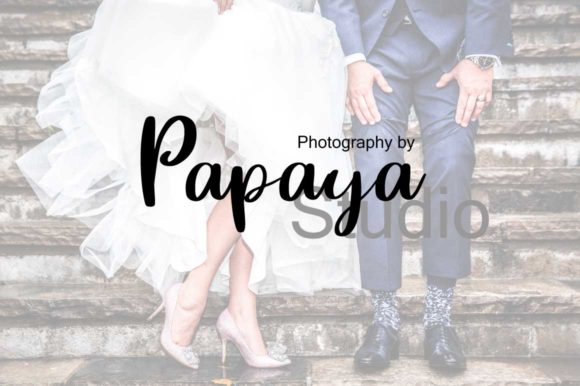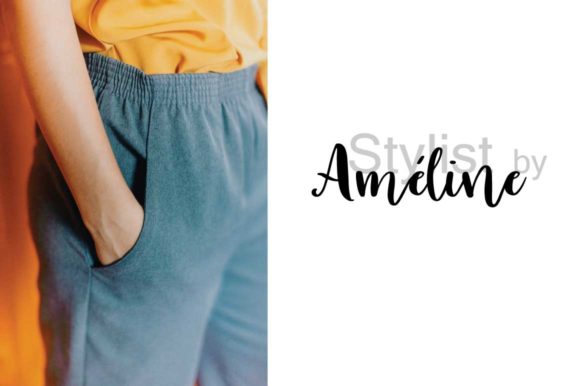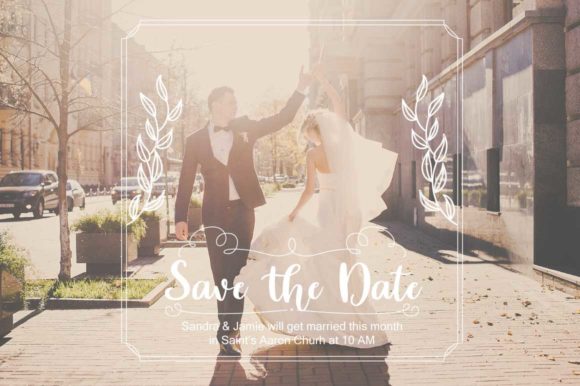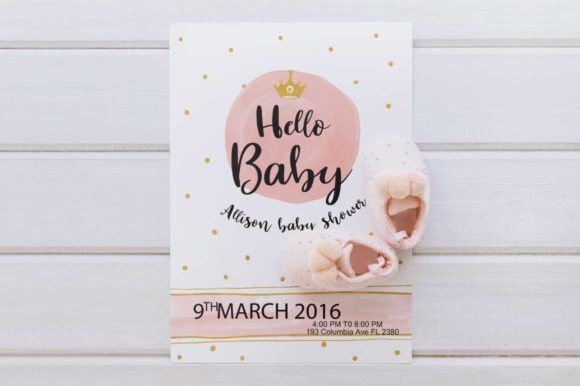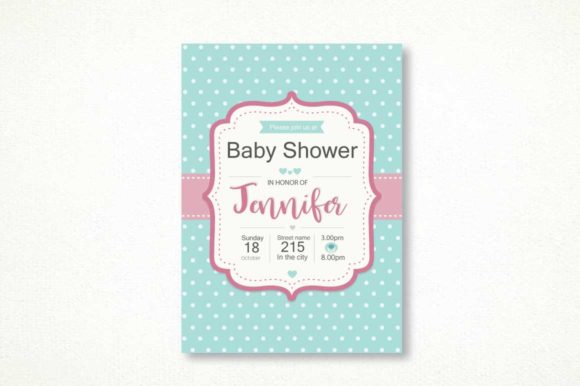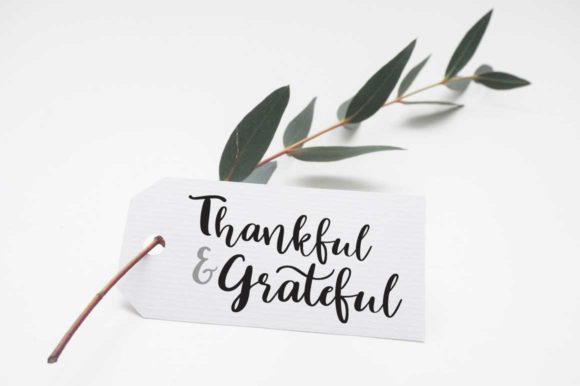
Introducing Boekban Font: The Ultimate Casual Handwritten Script Font
Are you a designer or crafter looking for a font that adds a touch of elegance and femininity to your designs? Look no further than the Boekban font. This casual handwritten script font is perfect for creating beautiful and eye-catching designs that stand out from the crowd.
The Boekban Font: A Striking yet Elegant Style
The Boekban font boasts a striking yet elegant style that is sure to capture the attention of your audience. Its casual handwritten script design gives it a unique and personal feel, making it perfect for a wide range of design projects. Whether you’re creating a logo, branding materials, or social media graphics, the Boekban font is sure to add a touch of sophistication and style.
Adding a Feminine Feel to Your Designs
One of the standout features of the Boekban font is its ability to add a feminine feel to your designs. The font’s elegant and cursive script design gives it a distinctly feminine touch, making it perfect for designs that require a more delicate and refined aesthetic. Whether you’re creating designs for a female audience or simply want to add a touch of elegance to your project, the Boekban font is an excellent choice.
The Boekban font is perfect for designers and crafters who want to add a personal touch to their designs. Its casual handwritten script design makes it ideal for a wide range of projects, from handmade crafts to digital designs. Whether you’re creating custom stationery, party invitations, or social media graphics, the Boekban font is sure to add a touch of personality and style to your designs.
Key Features of the Boekban Font
• Casual handwritten script design: The Boekban font features a casual handwritten script design that gives it a unique and personal feel.
• Striking yet elegant style: The font boasts a striking yet elegant style that is sure to capture the attention of your audience.
• Feminine feel: The Boekban font adds a feminine feel to your designs, making it perfect for projects that require a more delicate and refined aesthetic.
• Perfect for designers and crafters: The font is ideal for designers and crafters who want to add a personal touch to their designs.
Tips for Using the Boekban Font
Here are a few tips for using the Boekban font in your designs:
• Use it for headings and titles: The Boekban font is perfect for headings and titles, where its elegant and cursive script design can really shine.
• Pair it with a sans-serif font: Pairing the Boekban font with a sans-serif font can create a beautiful contrast that adds visual interest to your designs.
• Experiment with different colors: The Boekban font looks great in a wide range of colors, so don’t be afraid to experiment and find the perfect hue for your design.
The Boekban font is a beautiful and versatile casual handwritten script font that is perfect for designers and crafters. Its striking yet elegant style and feminine feel make it ideal for a wide range of design projects, from logos and branding materials to social media graphics and handmade crafts. With its easy-to-use design and wide range of applications, the Boekban font is sure to become a favorite in your design toolkit.